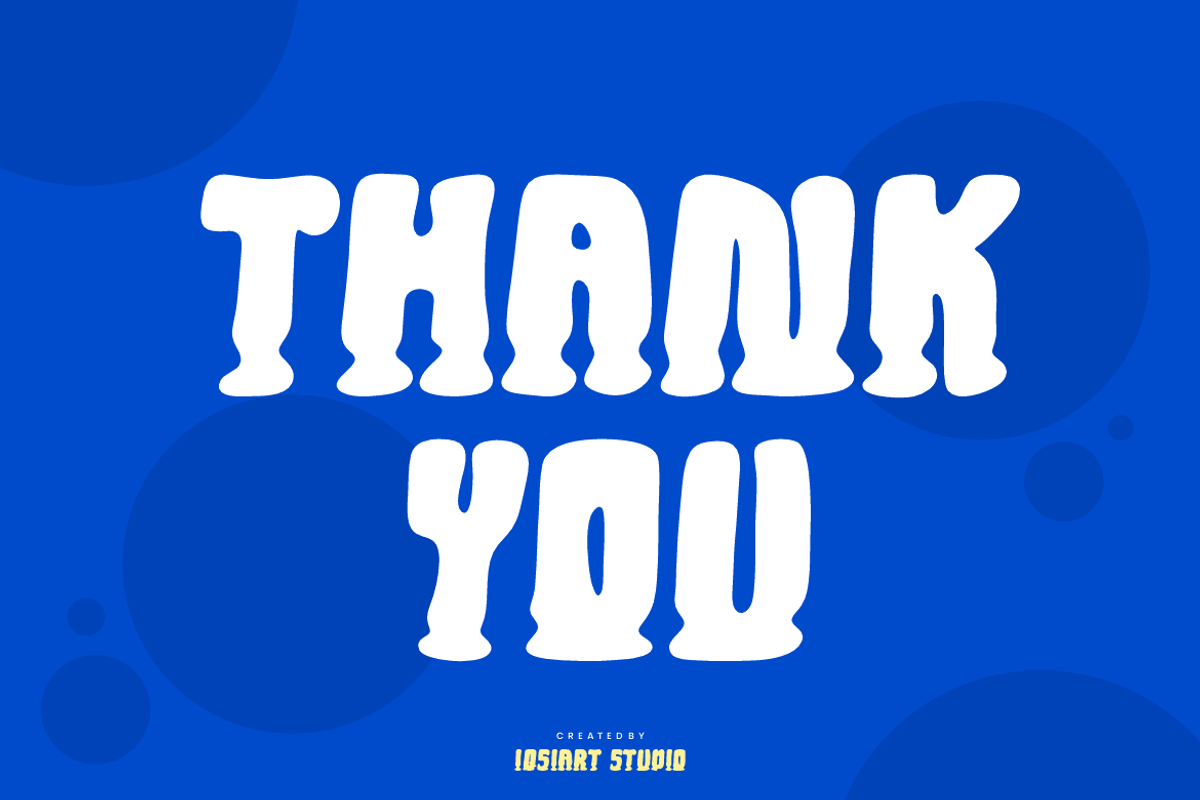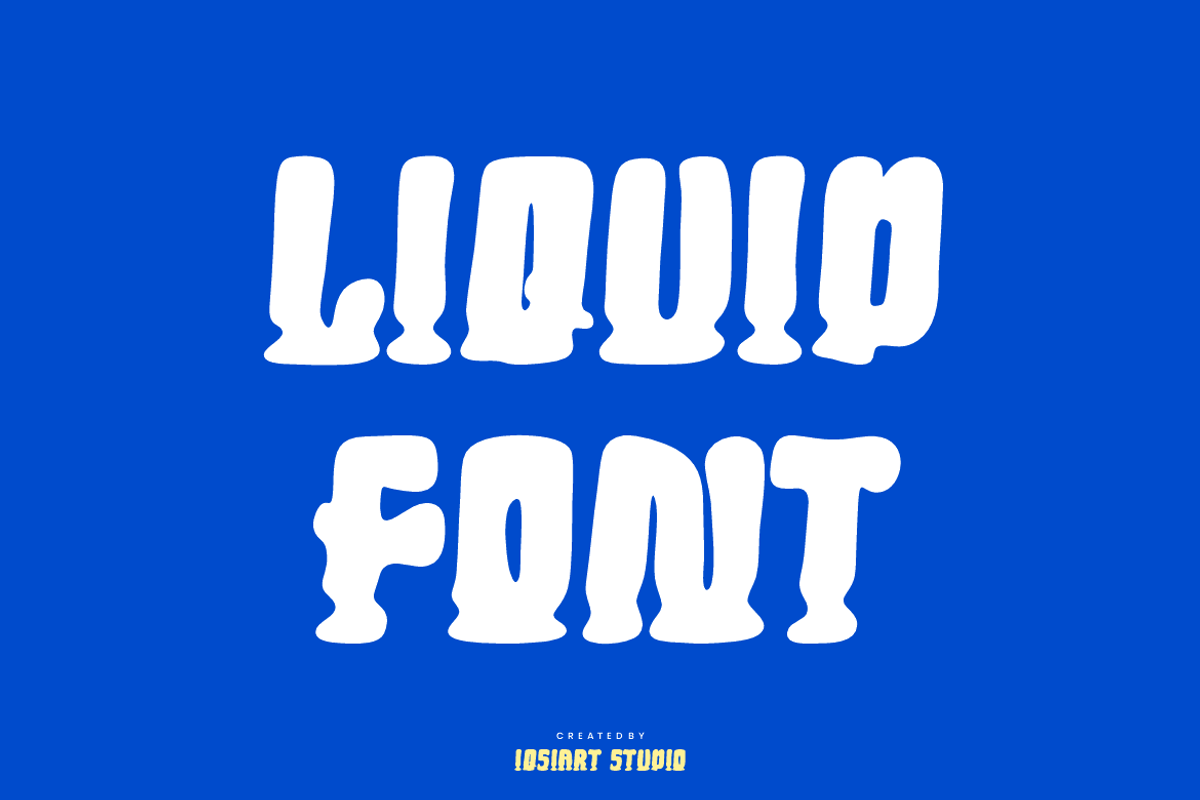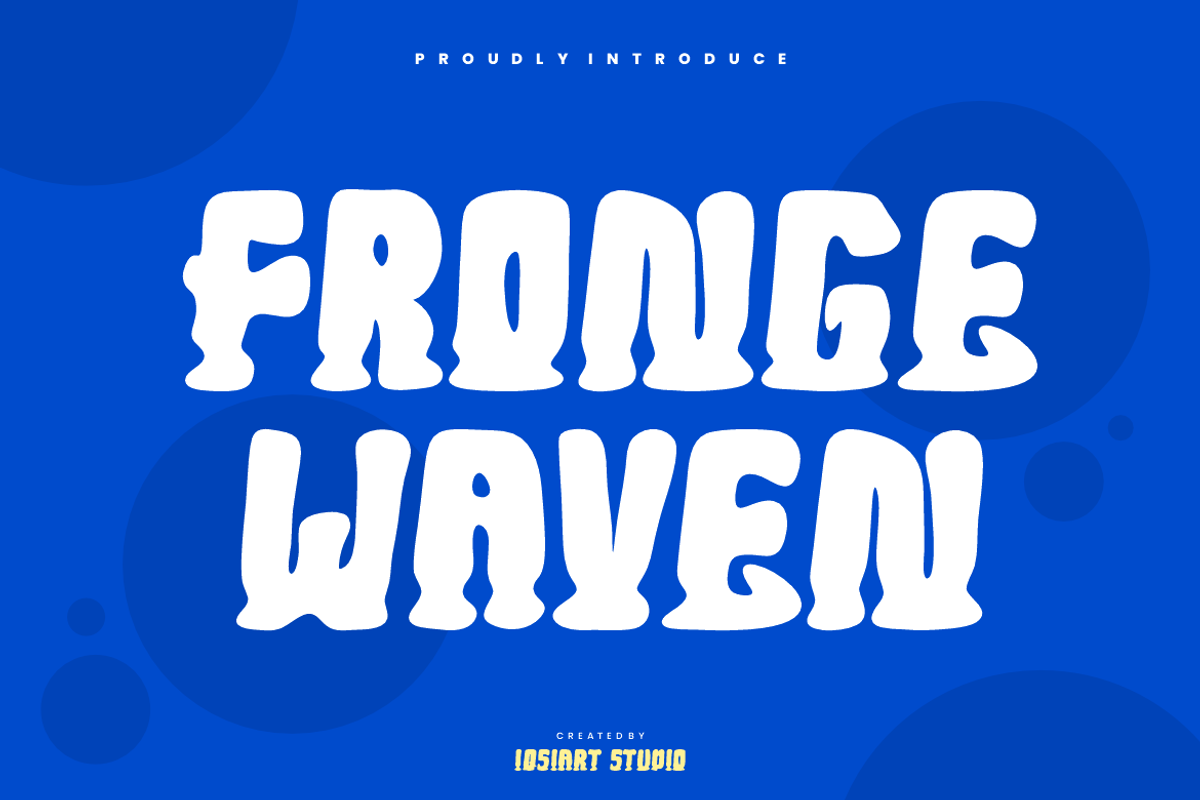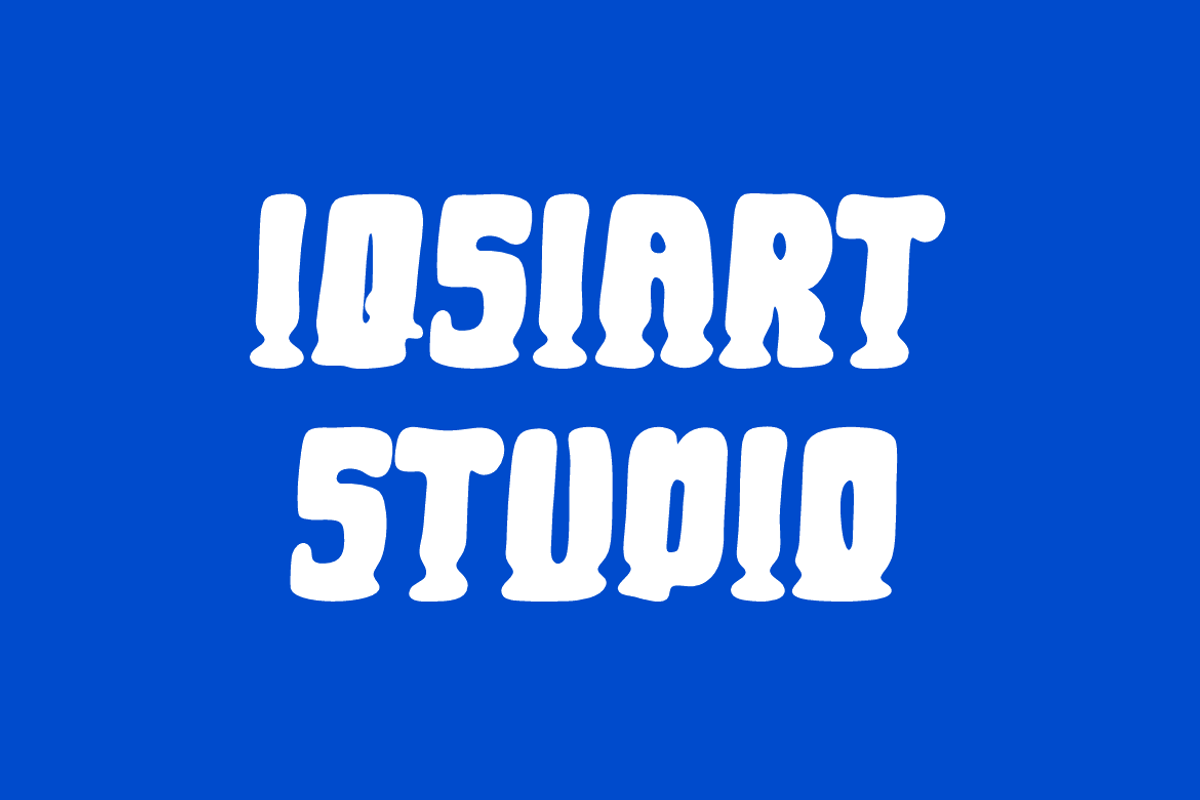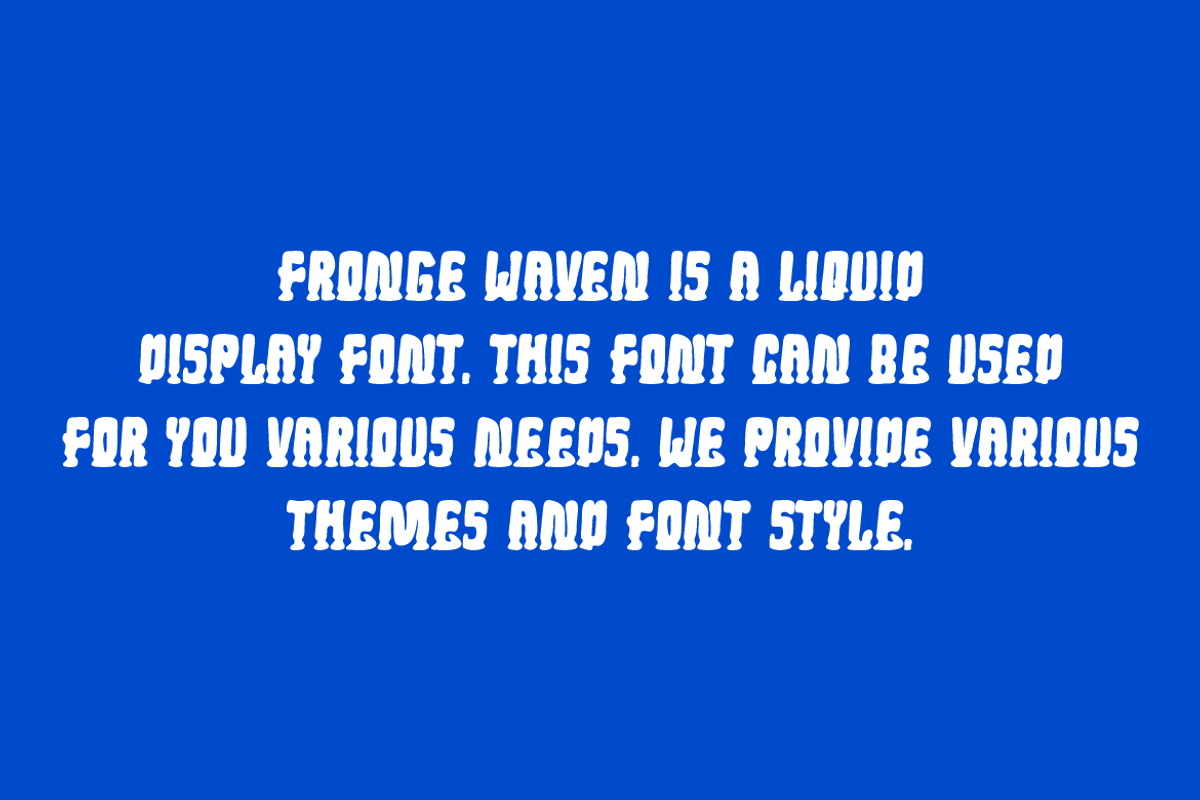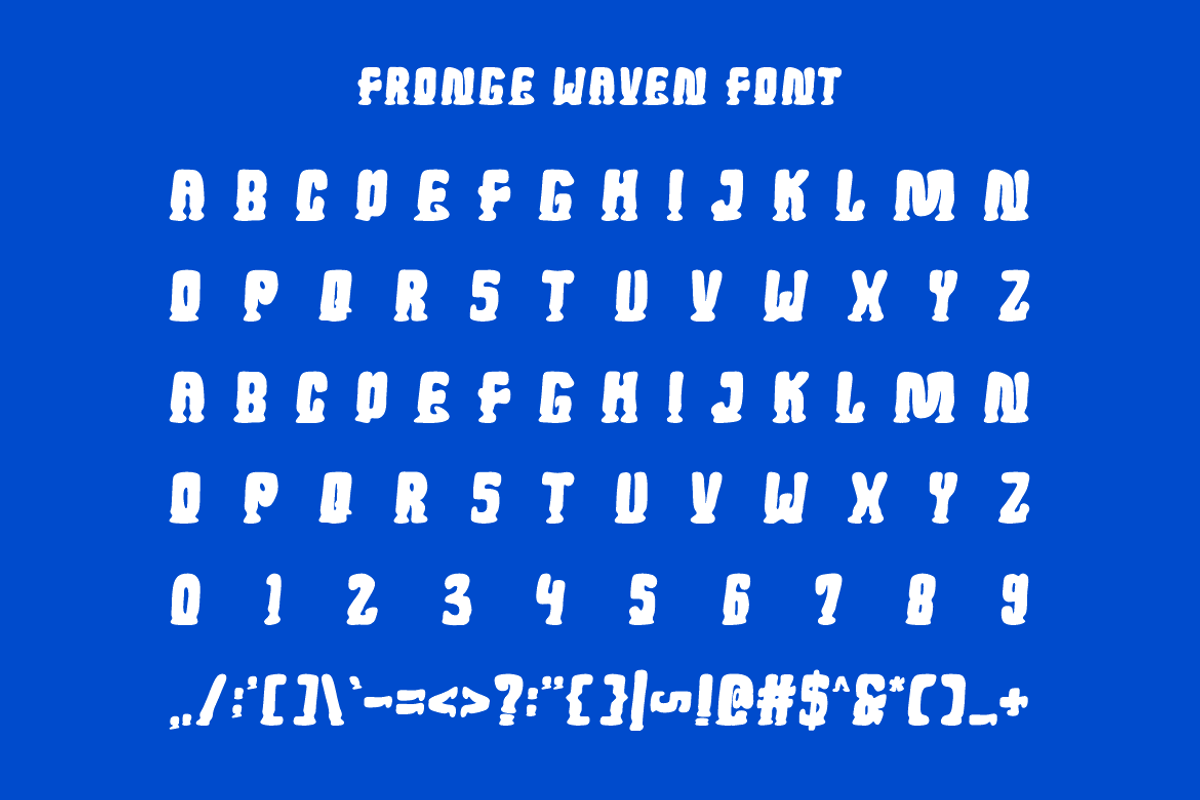
Fronge Waven - Liquid Font
Fronge Waven Font is a best and authentic display font. This font can be used for your various needs. We provide various themes and font styles. visit our profile to get a wide variety of themes and different font styles you need.